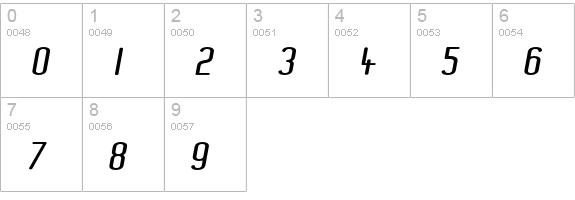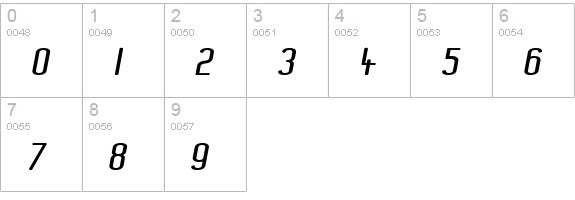
XenomorphSansItalic Font Details
Introducing XenomorphSansItalic font - a sleek and stylish typeface that exudes a modern and sophisticated vibe. This unique font features italicized letterforms with a touch of avant-garde flair, making it perfect for adding a touch of elegance to any design project. With its sharp angles and clean lines, XenomorphSansItalic font stands out from the crowd and commands attention wherever it is used. Whether you're designing a poster, branding materials, or a website, this font will elevate your project to the next level. Best of all, XenomorphSansItalic font is completely free to download at FontsMarket.com, making it accessible to designers of all levels. So why wait? Add a touch of sophistication to your designs with XenomorphSansItalic font today!